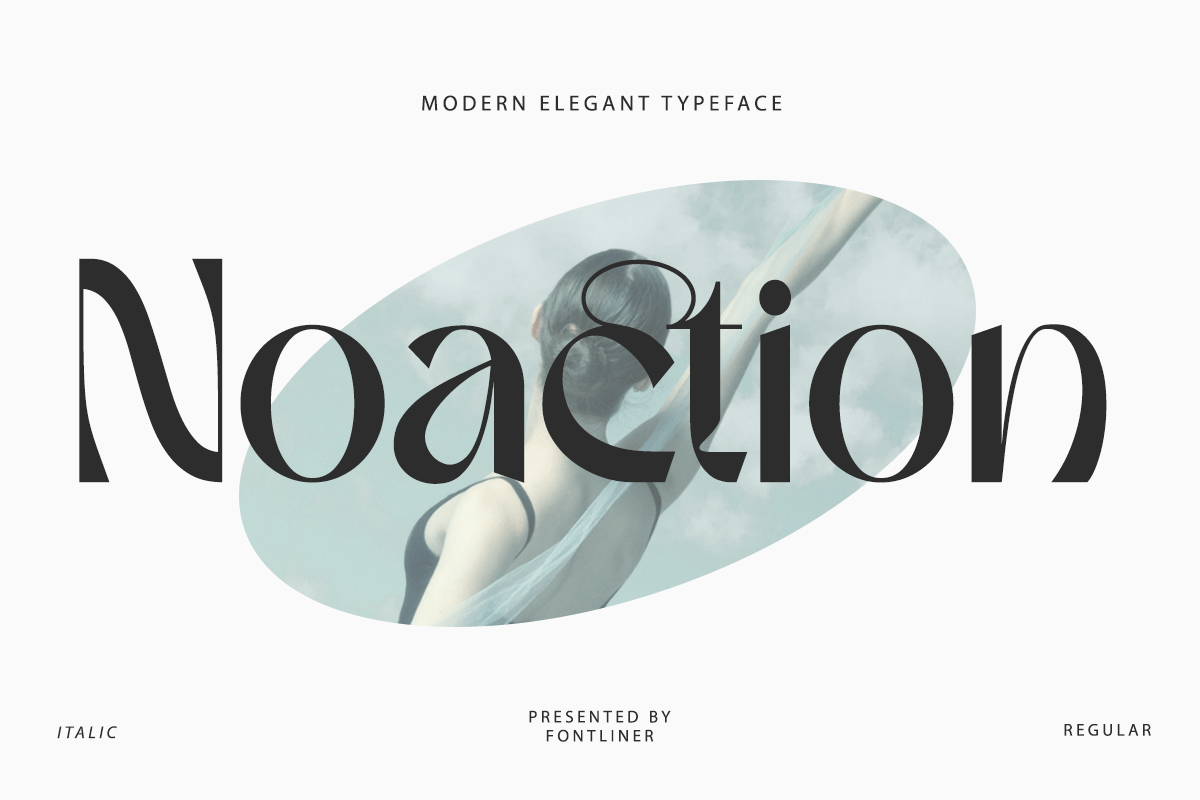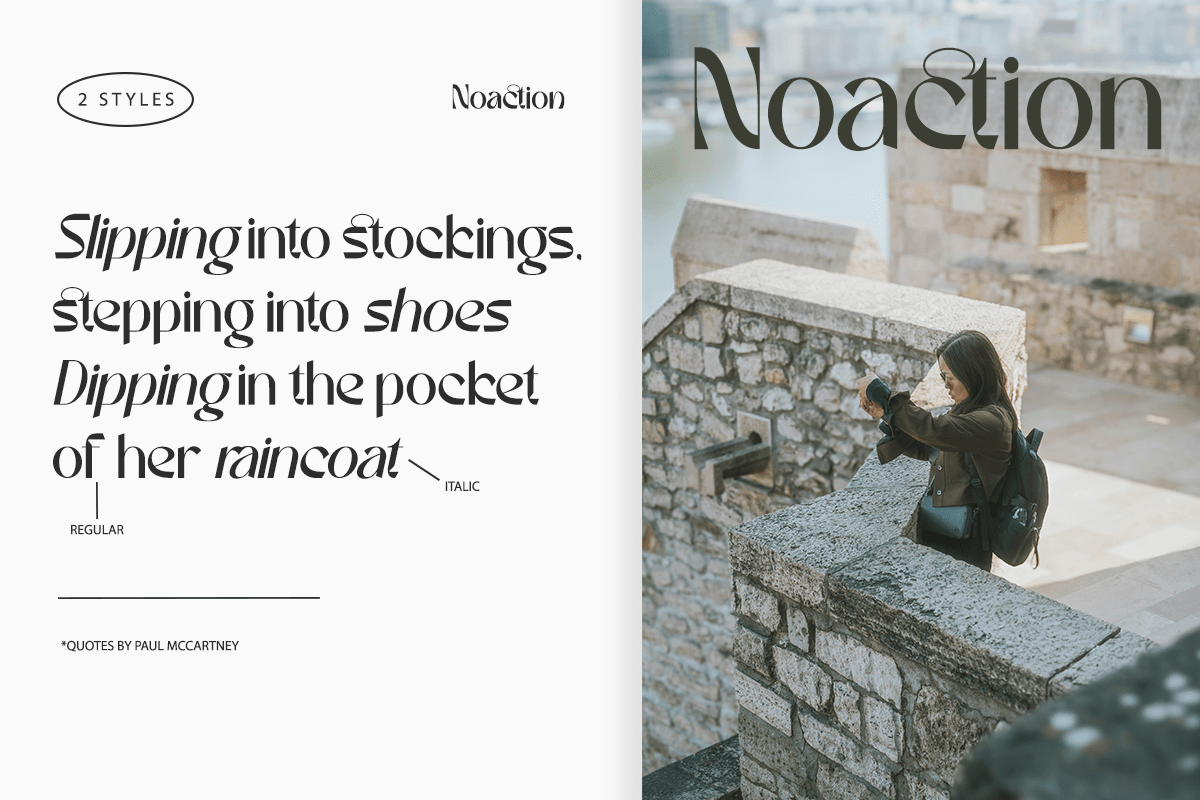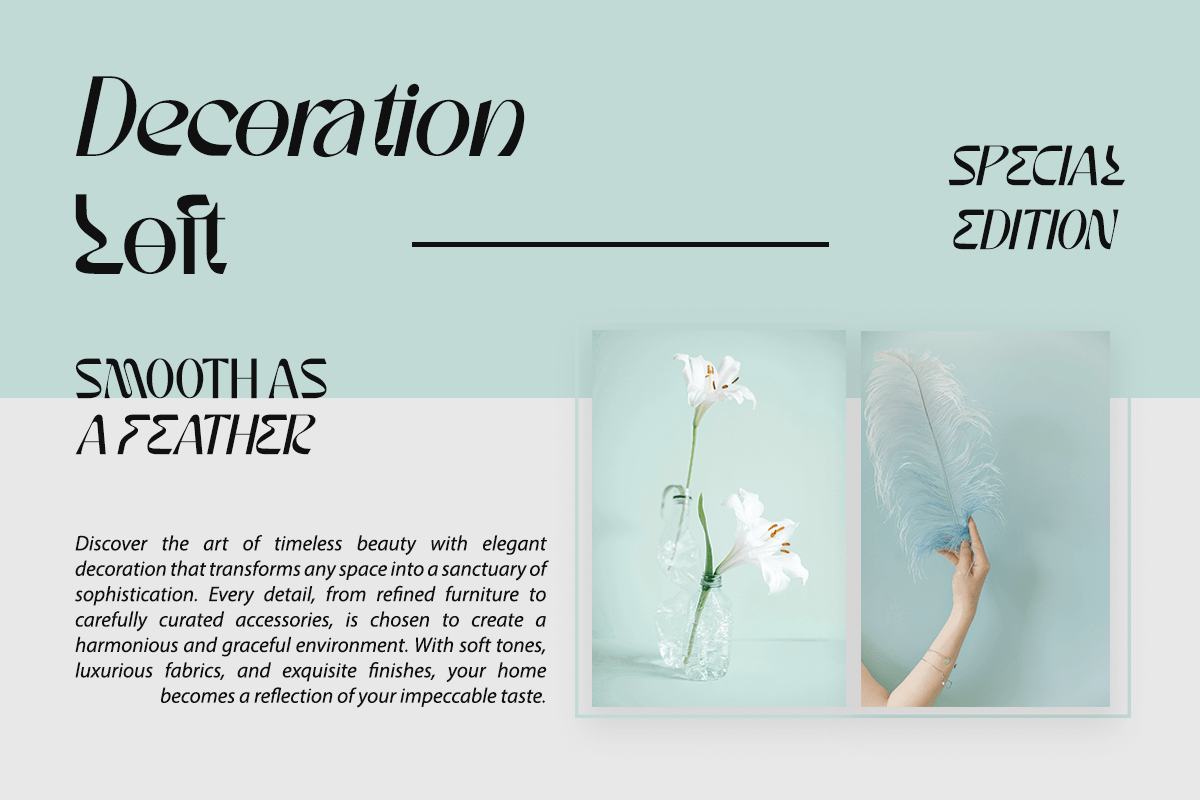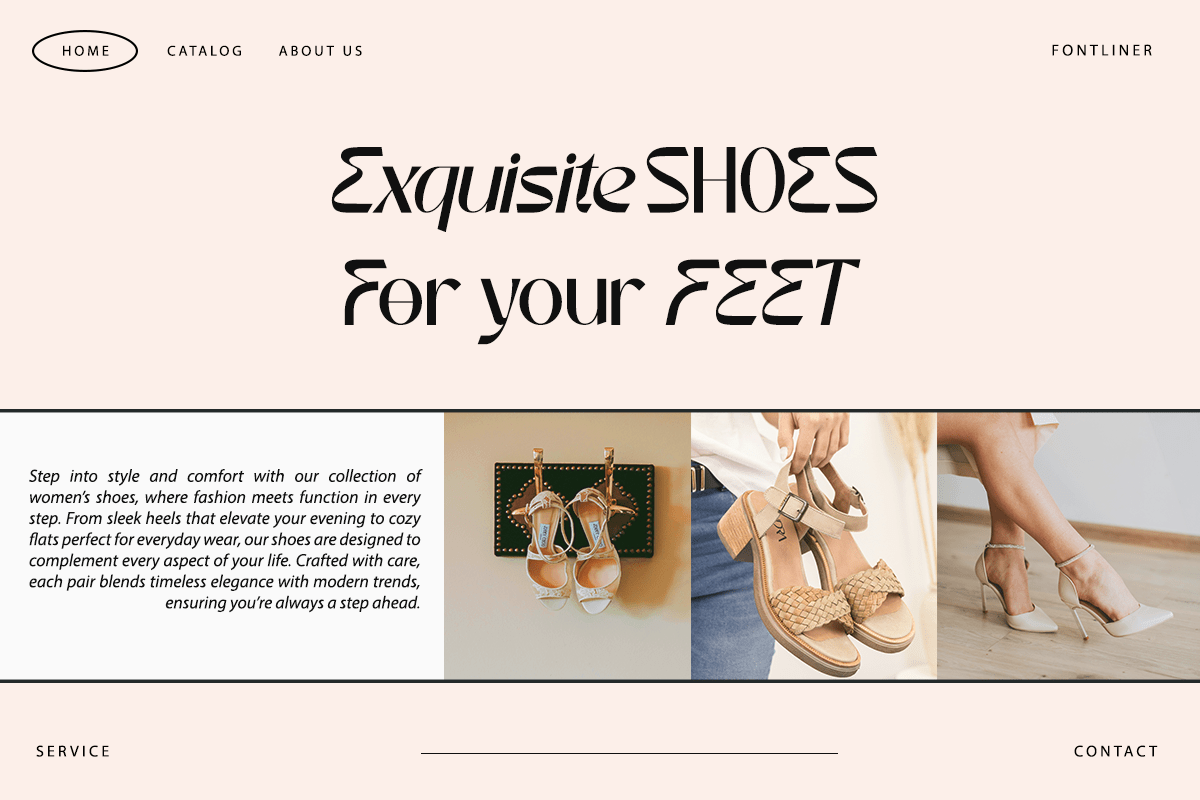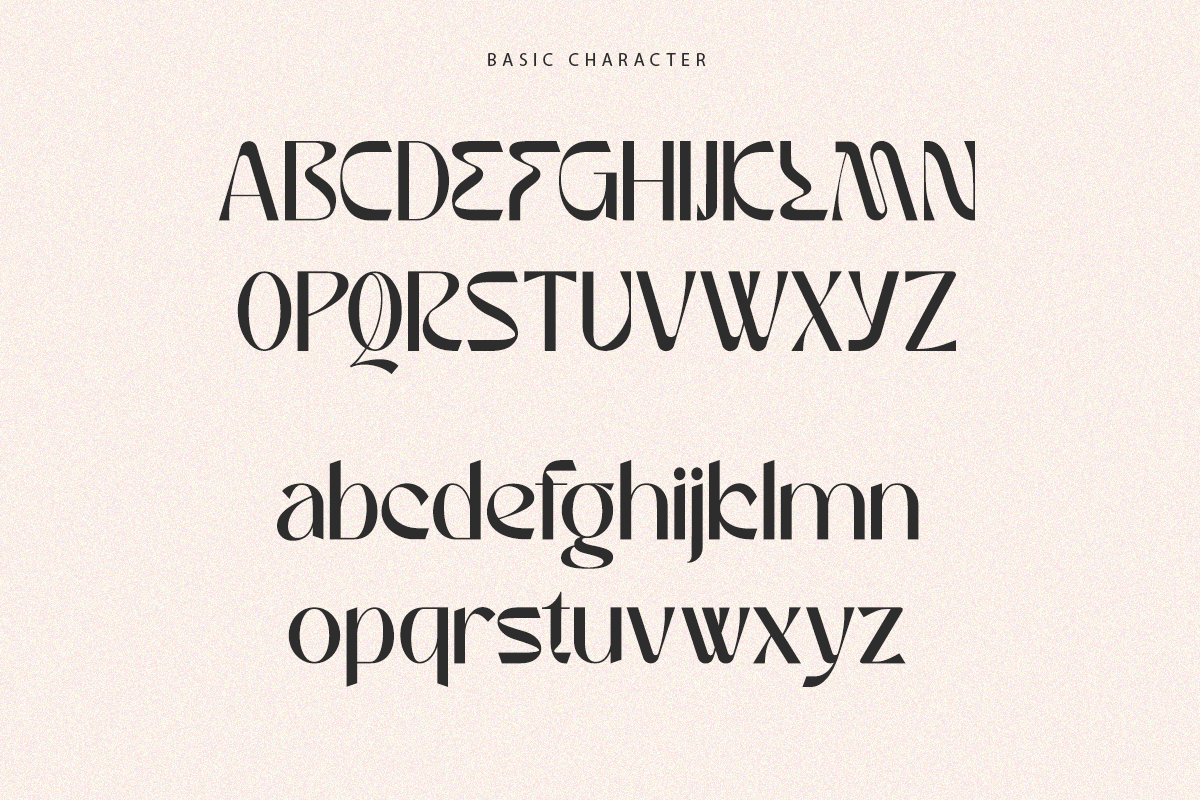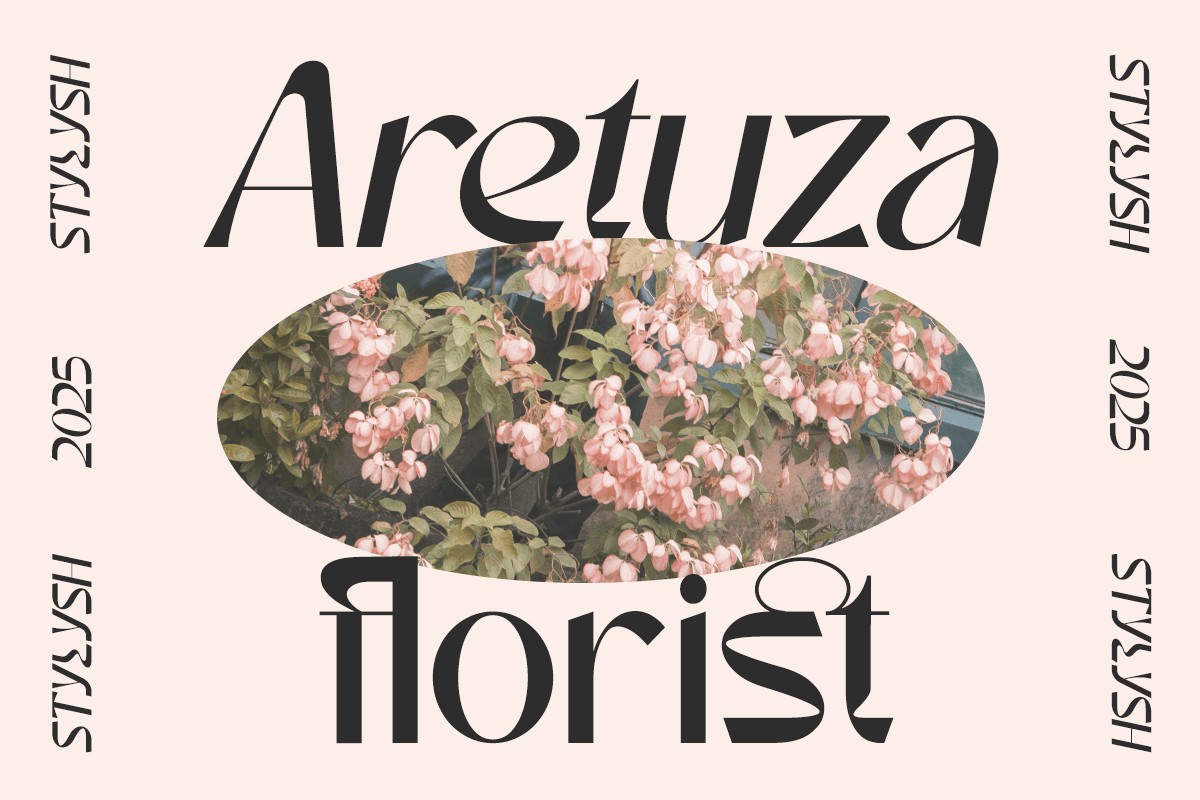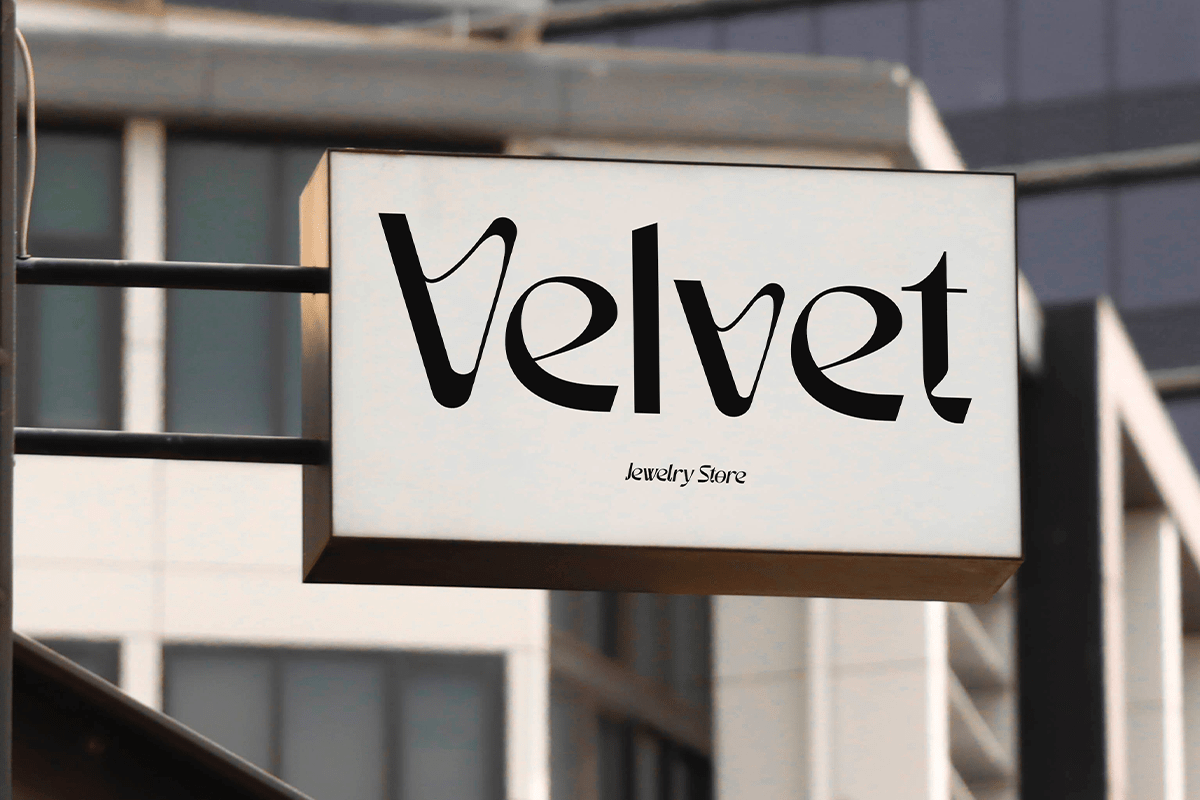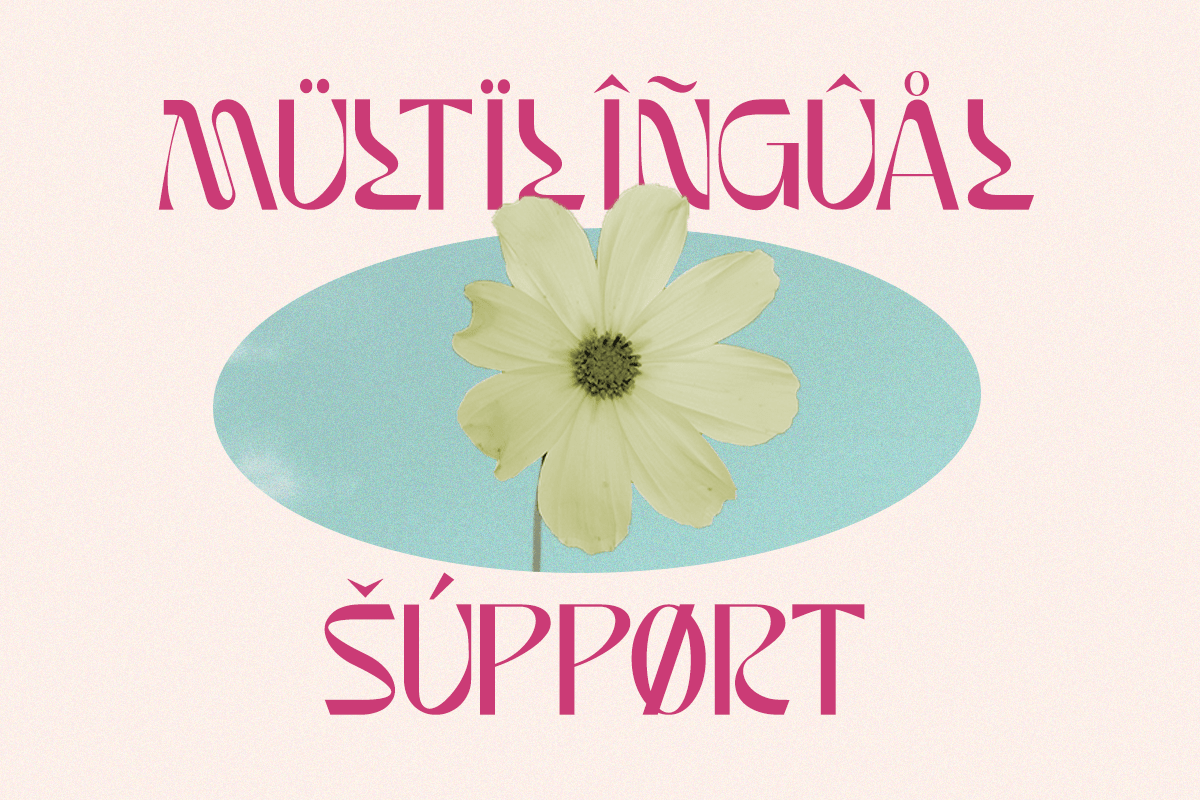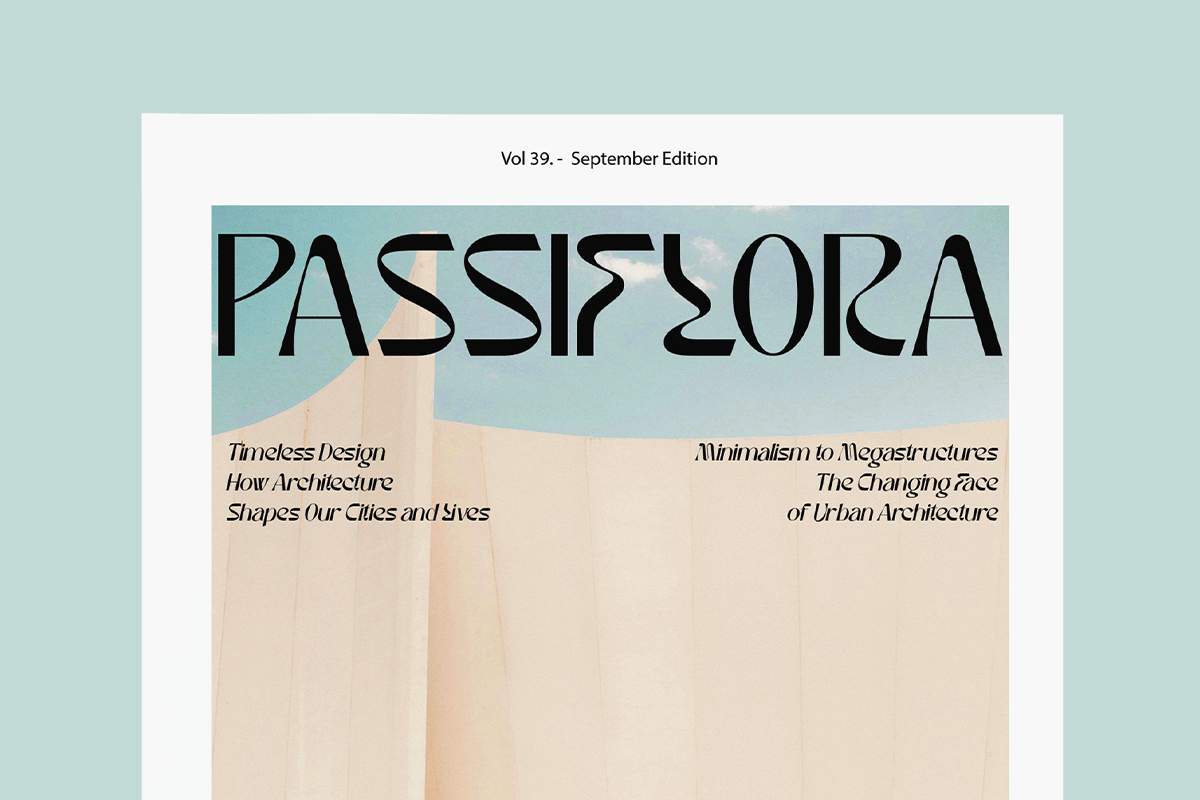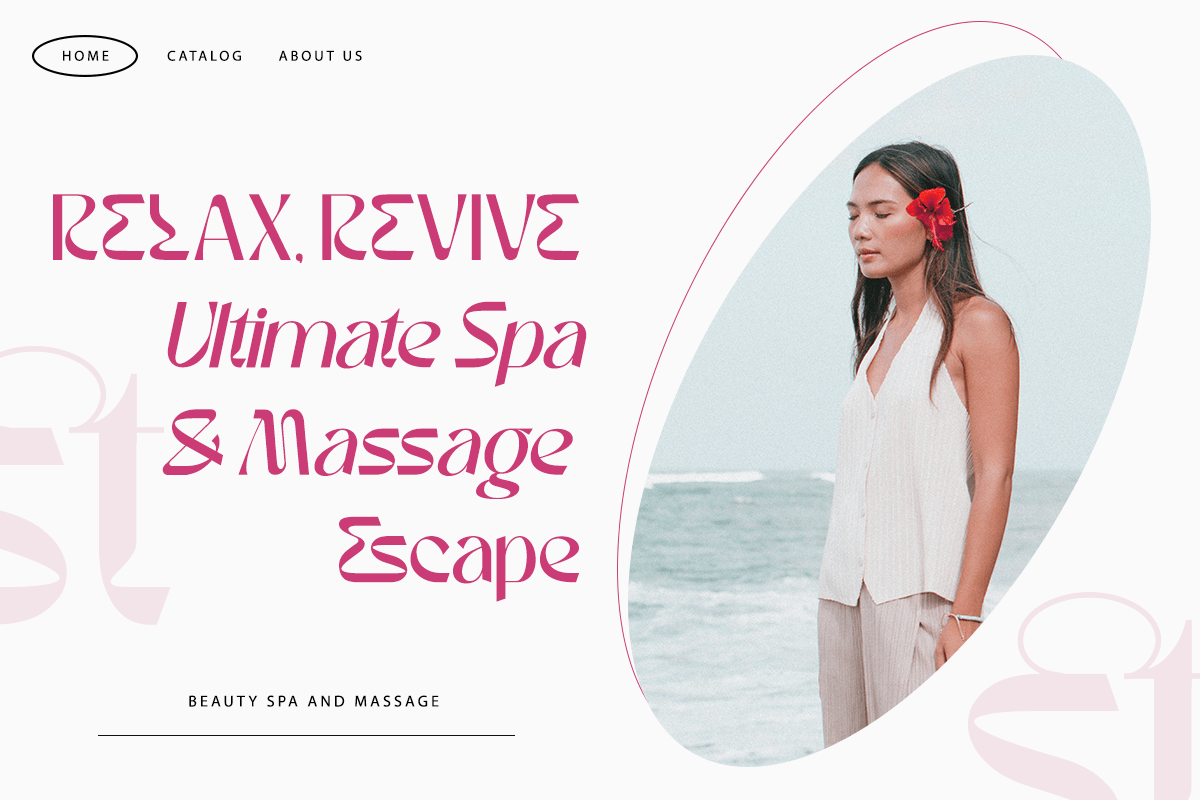
Noaction – Modern Elegant Serif Font
Noaction is a modern elegant serif font that blends refined minimalism with artistic sophistication. Featuring graceful high-contrast letterforms, stylish alternates, and distinctive contemporary details, this typeface creates a luxurious visual identity that feels timeless yet fashion-forward. Its balanced proportions and elegant curves make Noaction an ideal choice for premium branding, editorial design, and modern creative projects.
Noaction includes uppercase and lowercase characters, stylish alternates, multilingual support, numerals, punctuation, and symbols, providing designers with complete creative flexibility. From boutique branding and editorial layouts to cosmetic packaging and high-end presentations, Noaction is the perfect modern serif font for projects that demand elegance, versatility, and professional typography.
– Stylistic alternates
– Uppercase, Lowercase & Ligatures